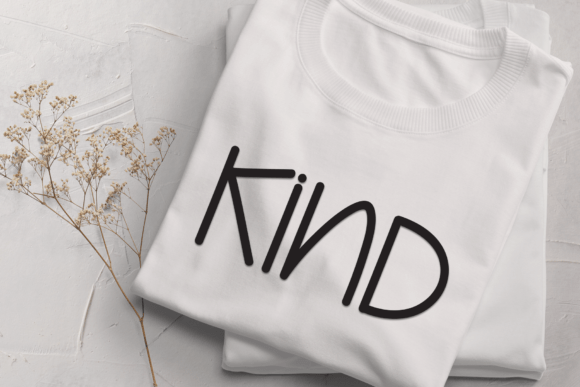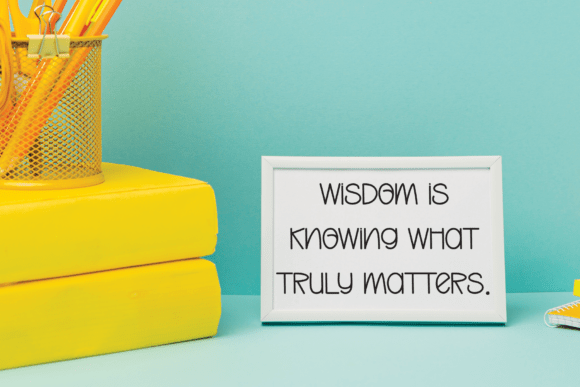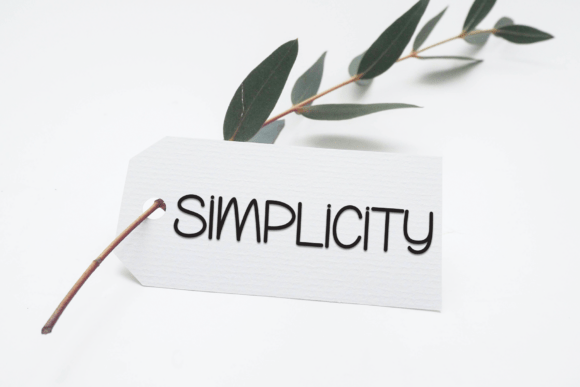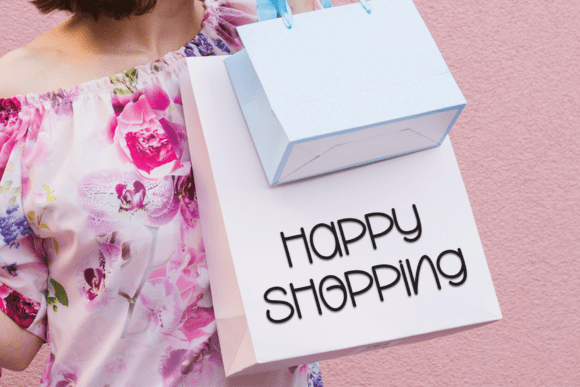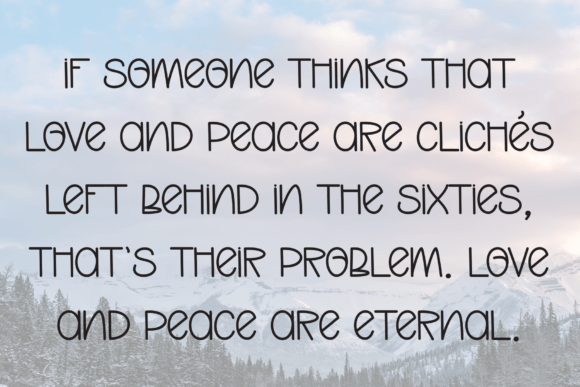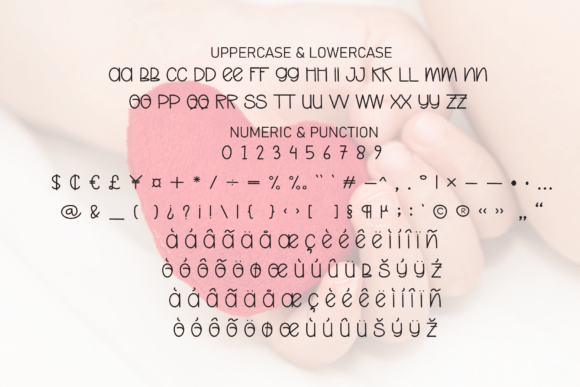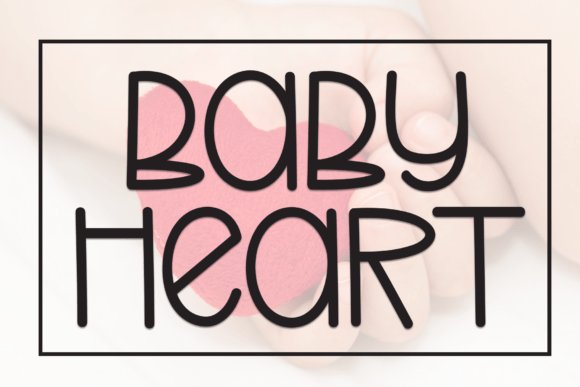
Baby Heart Font: The Ultimate Creative Companion for Designers and Crafters
Are you a designer, crafter, or DIY enthusiast looking for a unique and creative way to express yourself? Look no further than the Baby Heart Font, a special creative product designed to give you an extraordinary experience. With its latest style letters, this font is perfect for a wide range of projects, from wall displays and wedding invitations to social media post logos, advertisements, product packaging, and more.
The Baby Heart Font is a versatile and tasteful handwriting font that can elevate any project to the next level. Whether you’re a professional designer or a crafty DIY enthusiast, this font offers endless creative possibilities. Use it to:
- Create stunning wall displays and signage
- Design beautiful wedding invitations and stationery
- Develop eye-catching social media post logos and advertisements
- Enhance product packaging and product designs
- Add a personal touch to labels, photography, and watermarks
- Design unique invitations, stationery, and greeting cards
Why Choose Baby Heart Font?
So why choose the Baby Heart Font over other creative products on the market? Here are just a few reasons:
- Unique and stylish lettering that adds a touch of elegance to any project
Tips and Tricks for Using Baby Heart Font
To get the most out of the Baby Heart Font, here are a few tips and tricks to keep in mind:
- Experiment with different font sizes and styles to add visual interest
- Combine the Baby Heart Font with other fonts and design elements for a unique look
- Use the font to add a personal touch to your projects and designs